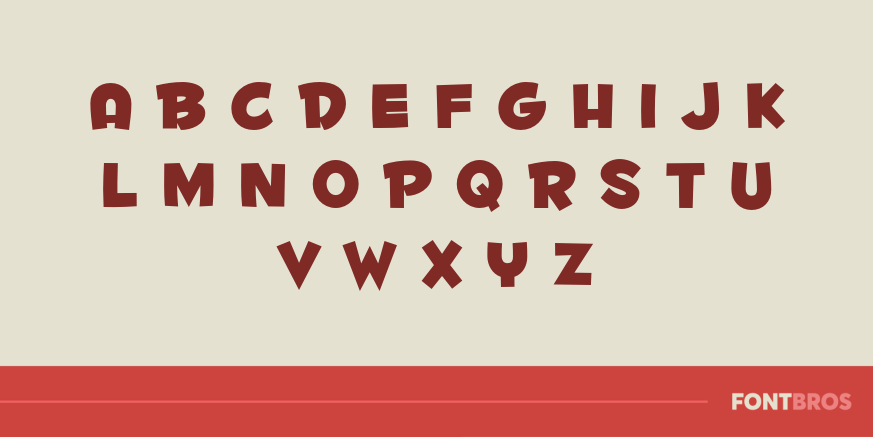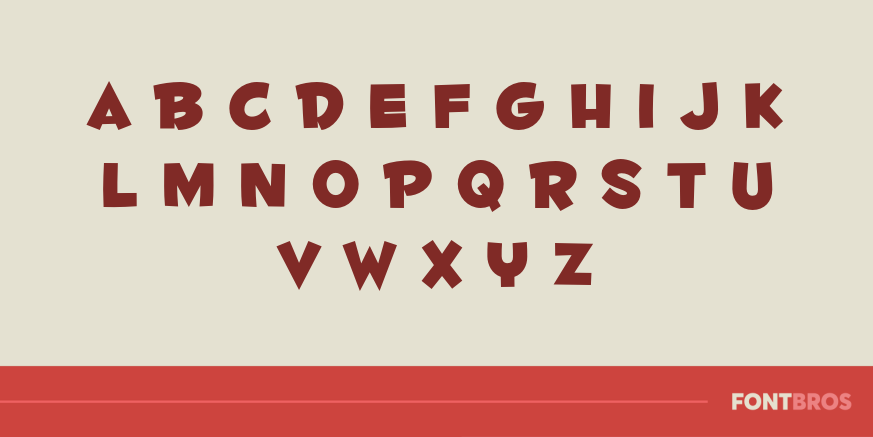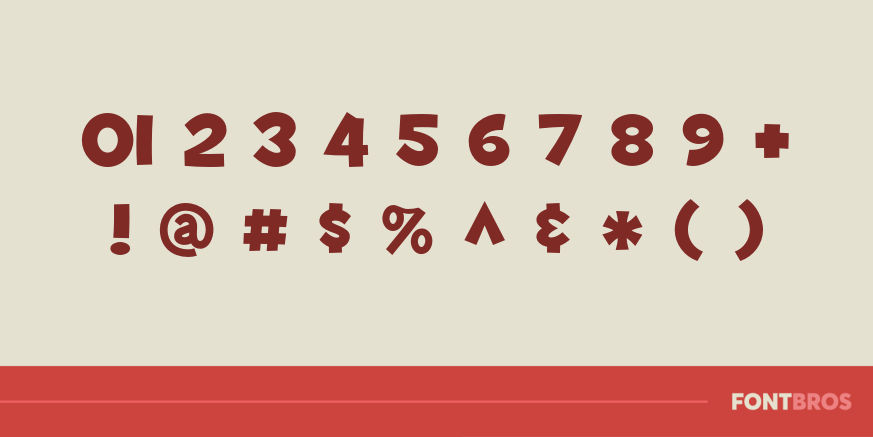
Fontdinerdotcom Huggable
Font Family by Font Diner
Wrap your arms around this chunky, squeezable, huggable font and add some heavy lovin' to your design projects!